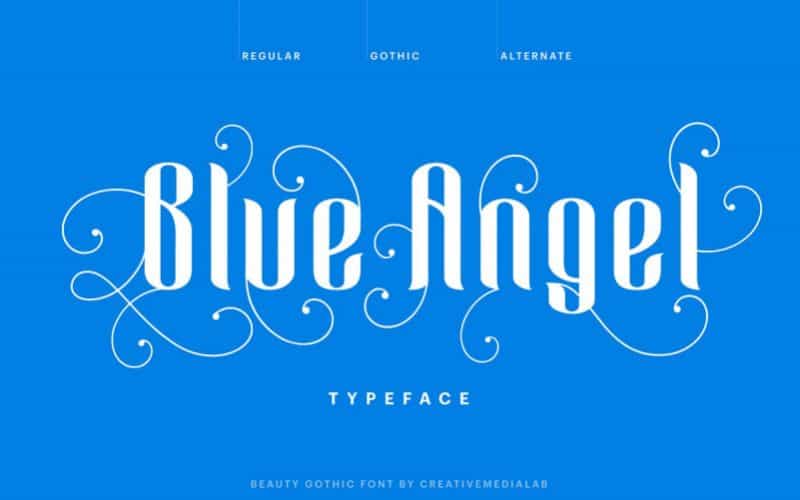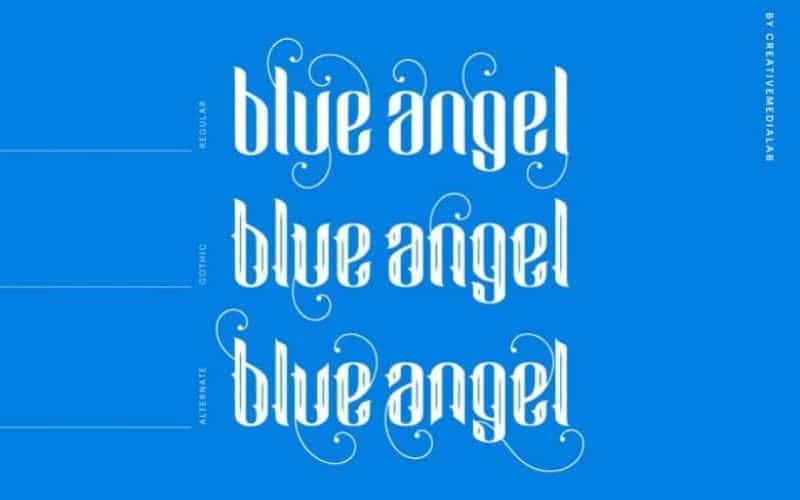
Discover Blue Angel Blackletter Font, part of the Commercial Calligraphy Blackletter Fancy collection—a versatile and unique font perfect for adding a personal touch to your projects. Download it for free and enjoy crafting designs with style, from invitations to social media posts. This font is available exclusively for personal use, giving you the freedom to create without limits. Unlock your creativity with Blue Angel Blackletter Font today!
Blue Angel is a Beauty font with three styles and ornament. Every character has few alternative sets to help the designer blend the floral curve into something beautiful and unique lettering project. The kit includes the set of ornaments which you can arrange to make the luxury badges or attach to your designed.